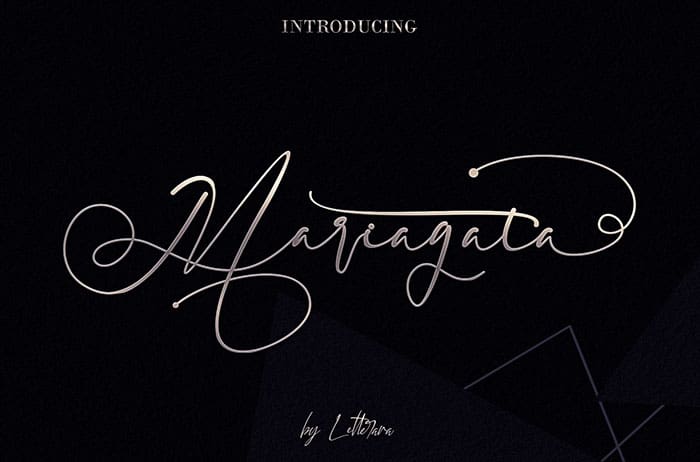
Free Mariagata Script Font
Mariagata Script Font
Free Mariagata script font is a sweet and charming script with unique lettering. This font use it to add a personal charm to any design idea. Mariagata is a mixture of copper calligraphy with a hand-lettering style. Designed to bring style elegance, sensual, simple and very readable typeface. Created this font by Thomas Aradea. You can also search more freeĀ Fonts.